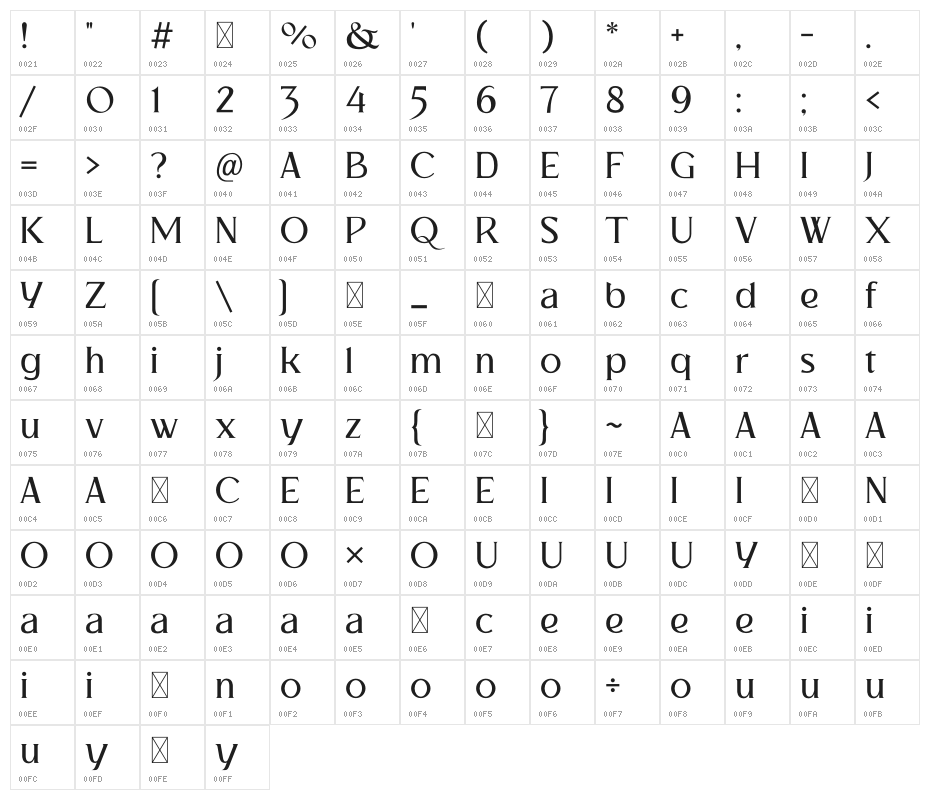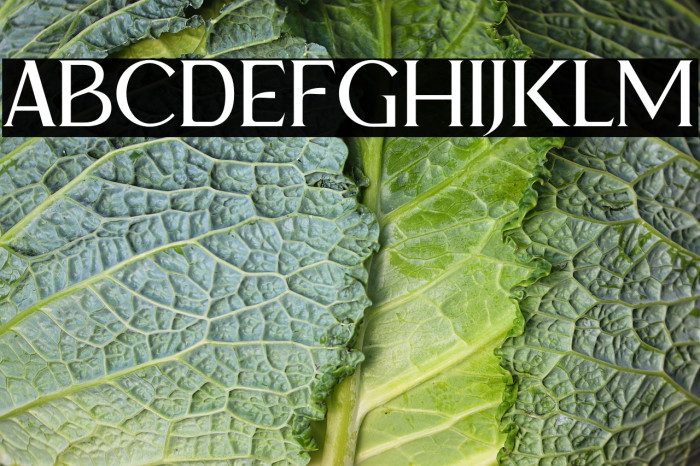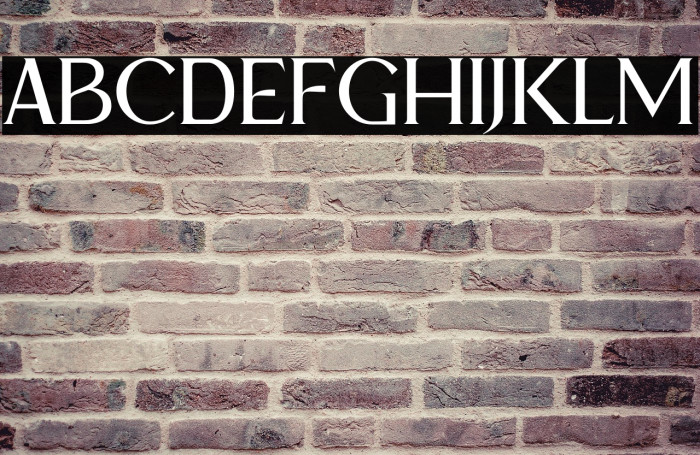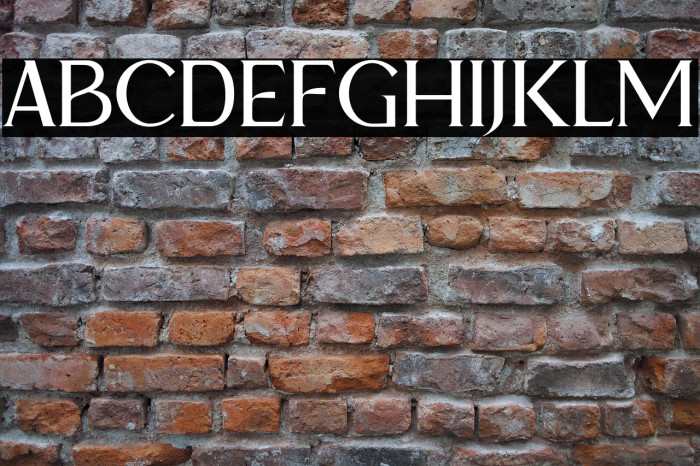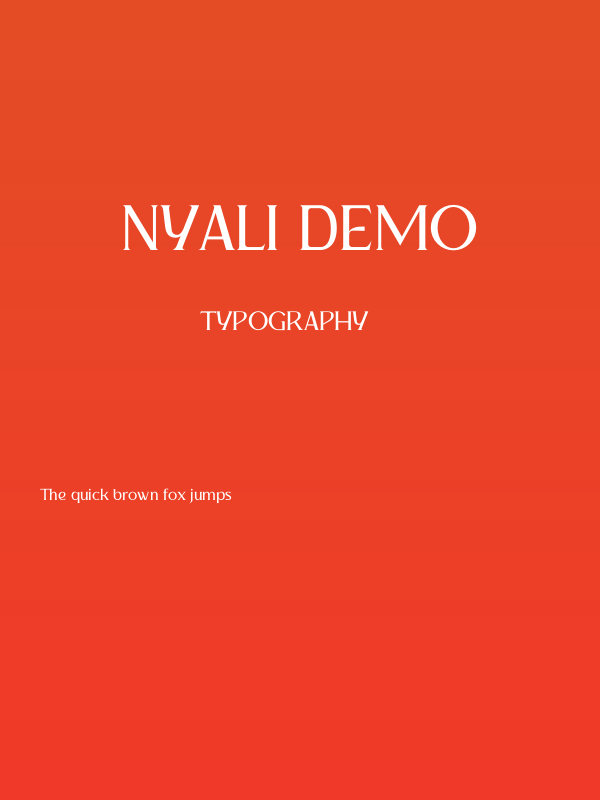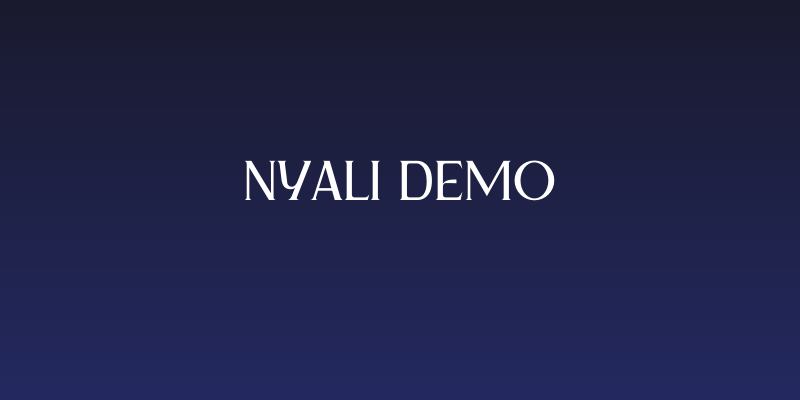
Nyali Demo Font
Nyali Demo Description
A serif font with elegant, flowing strokes and moderate contrast, featuring unique, slightly curved serifs.
| Use Case | Headlines, Body text |
| Proposed Projects | Editorial design, luxury branding, invitations. |